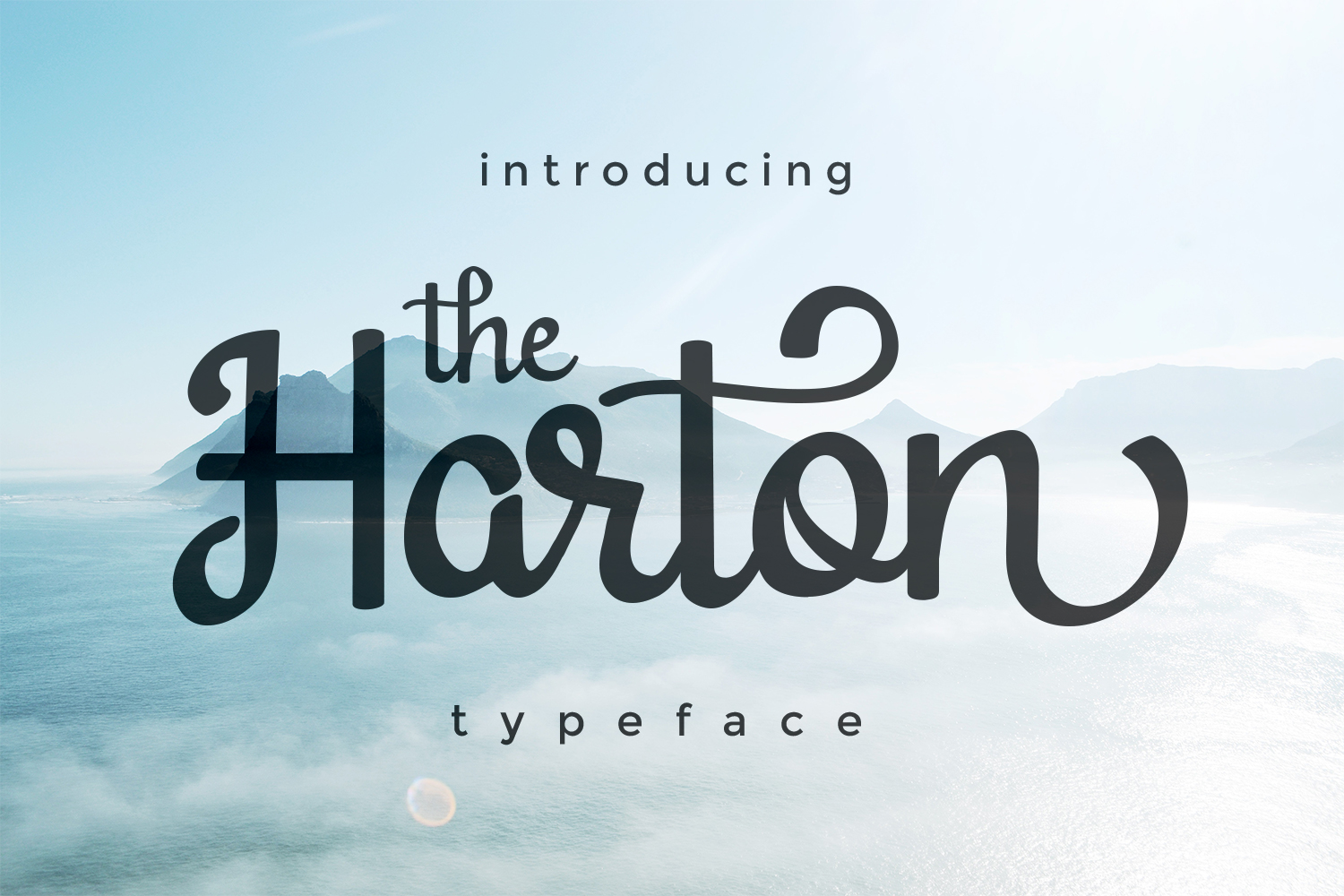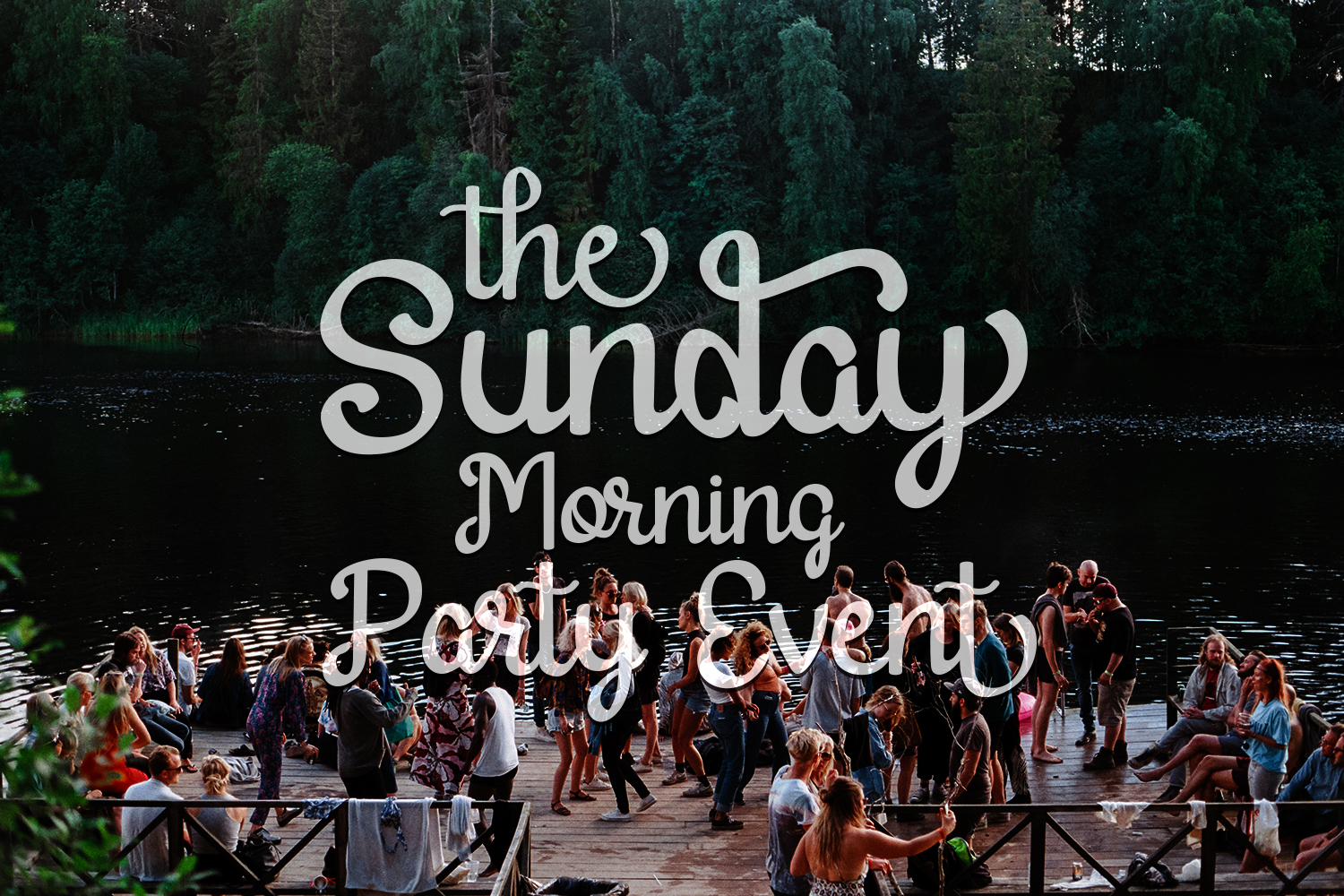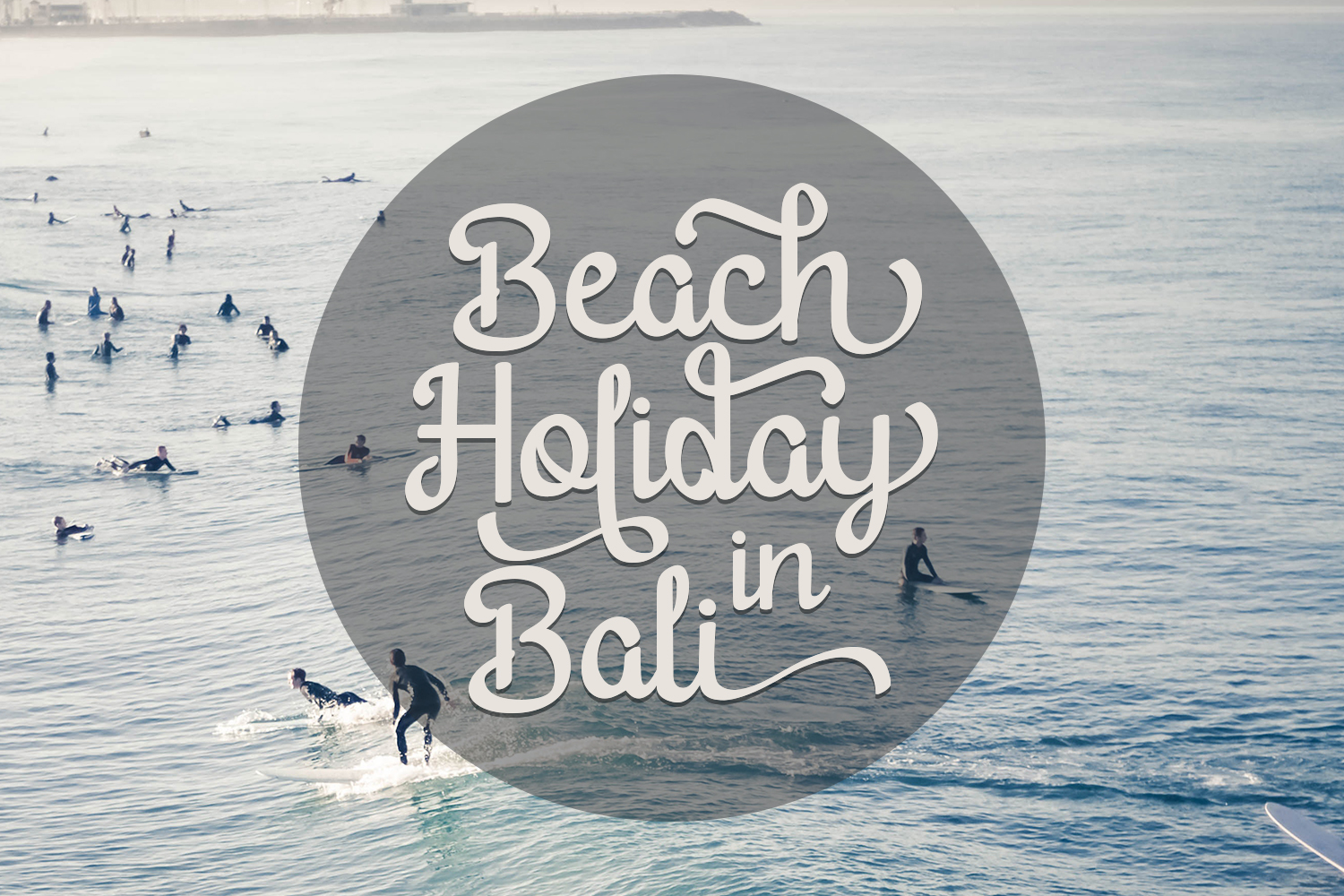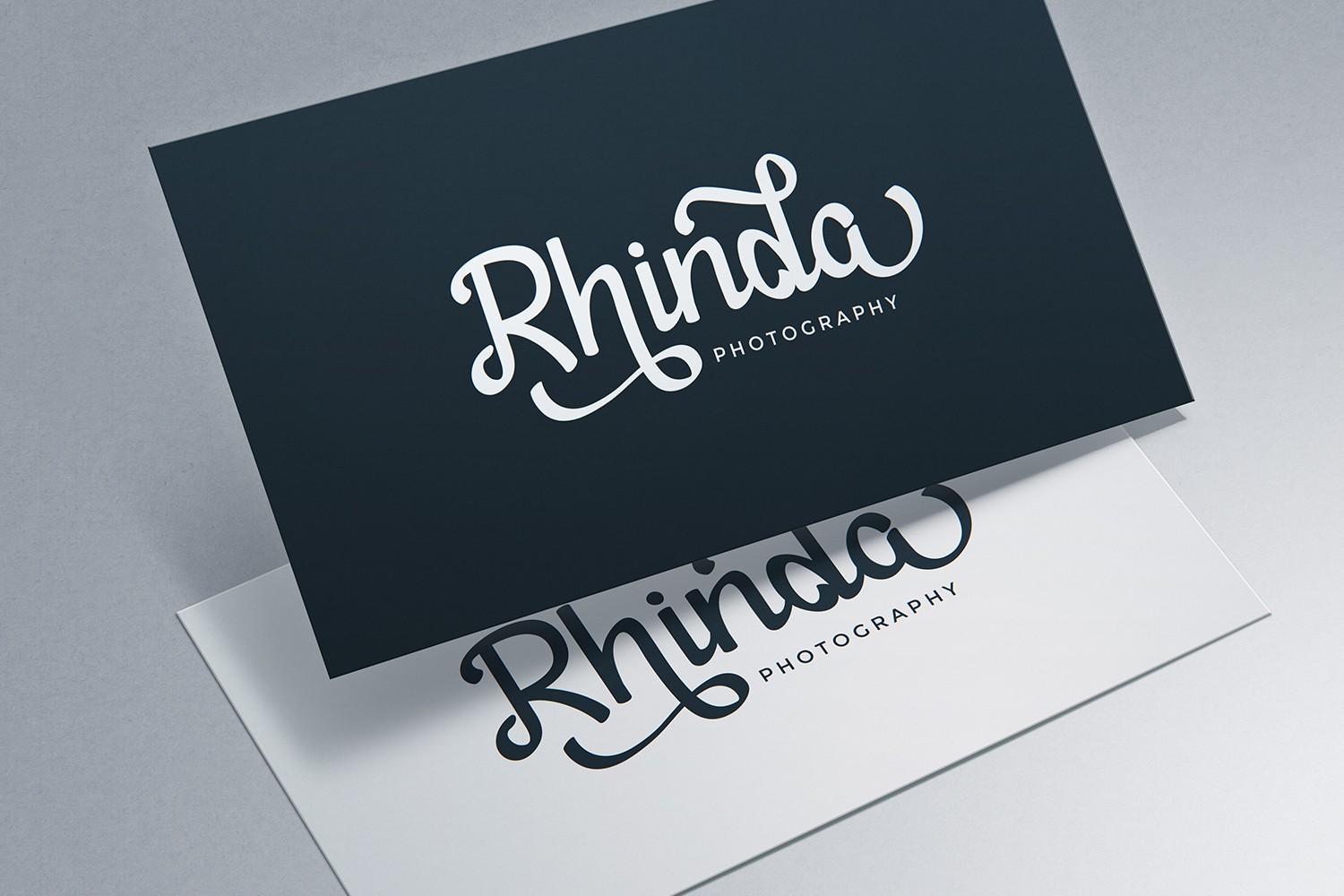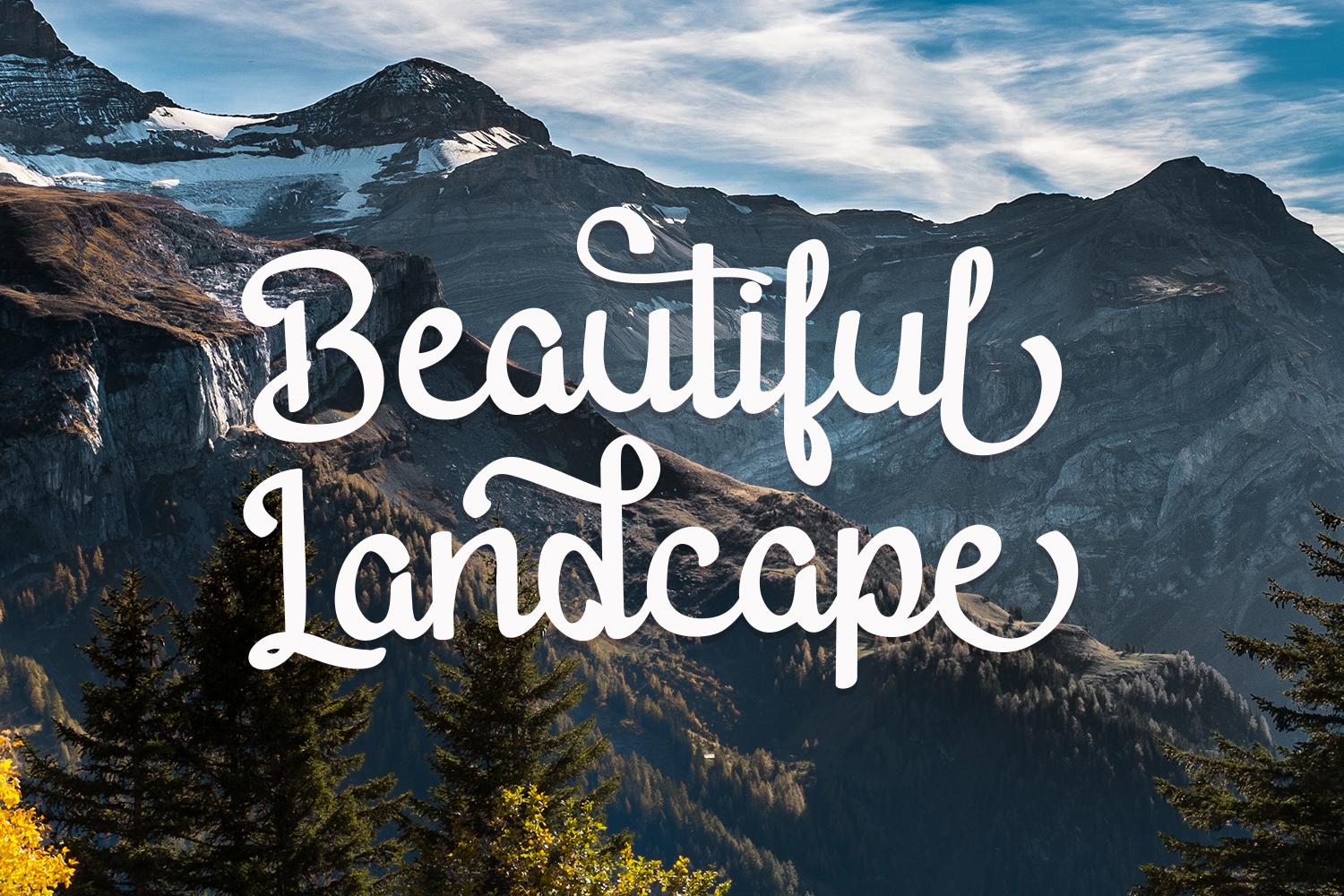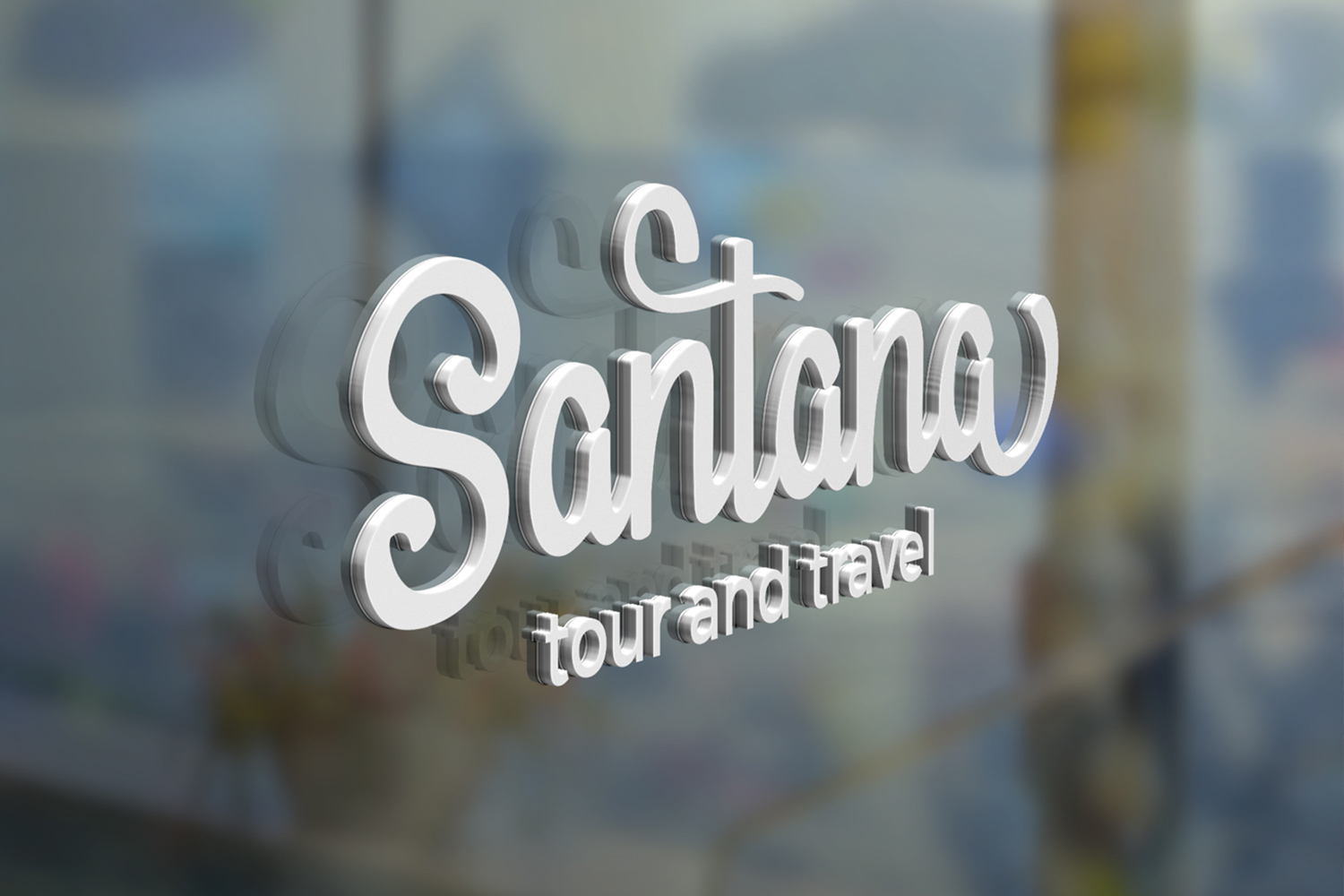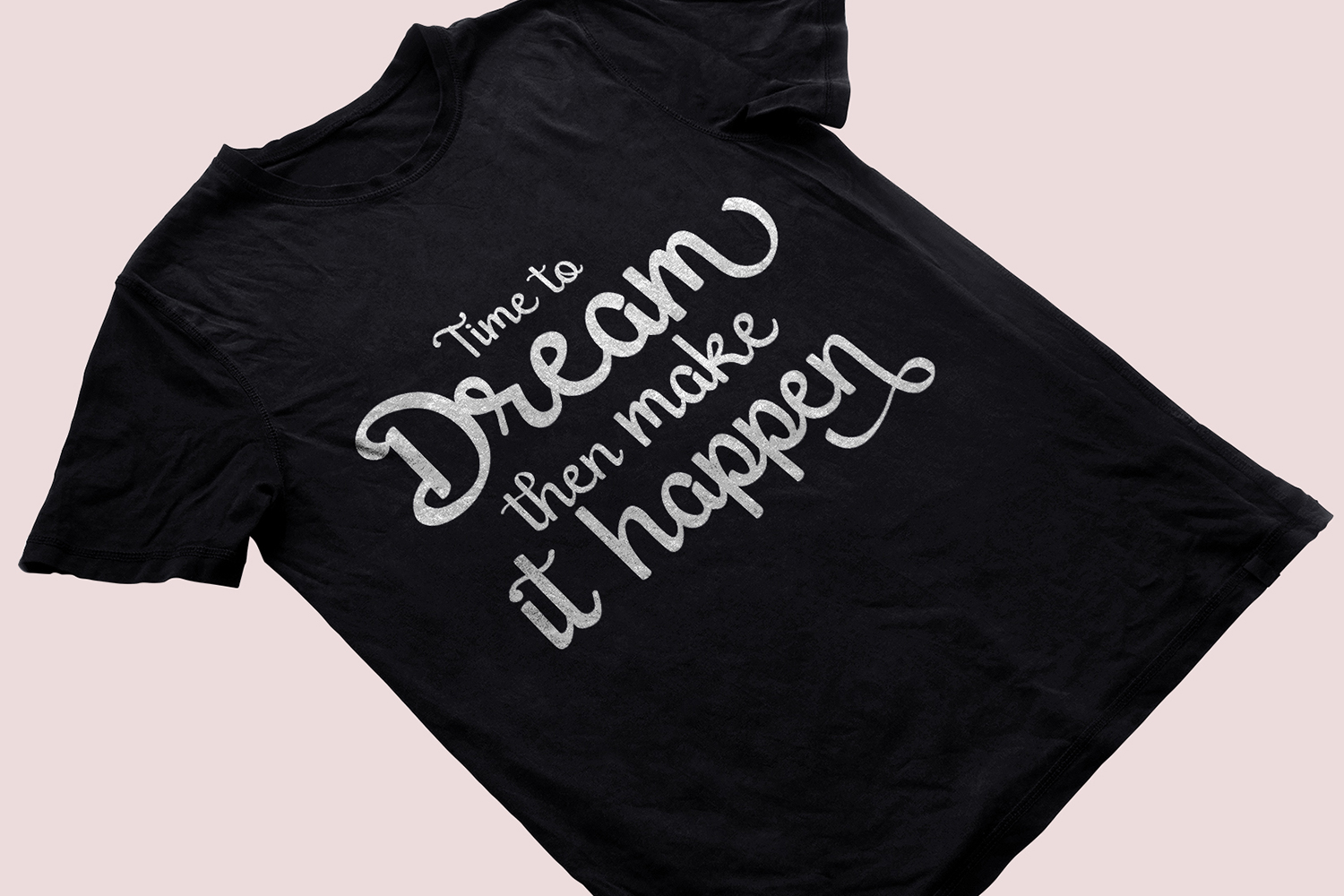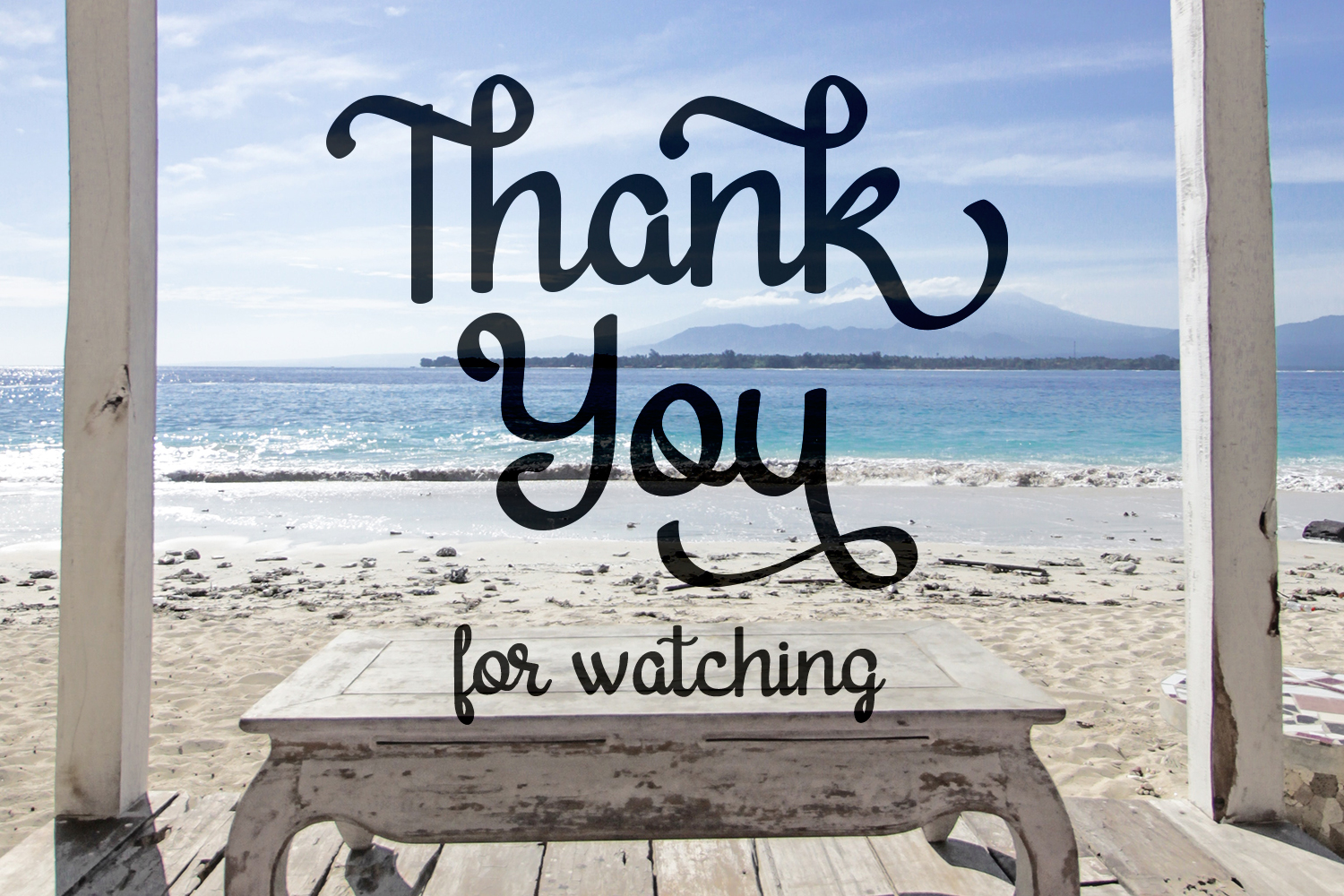
Harton Font
About Harton Font
Harton is a beautiful headline font, perfect for a wide range of designs and project types. This font has intriguing swashes that give this modern script font a vintage appeal.